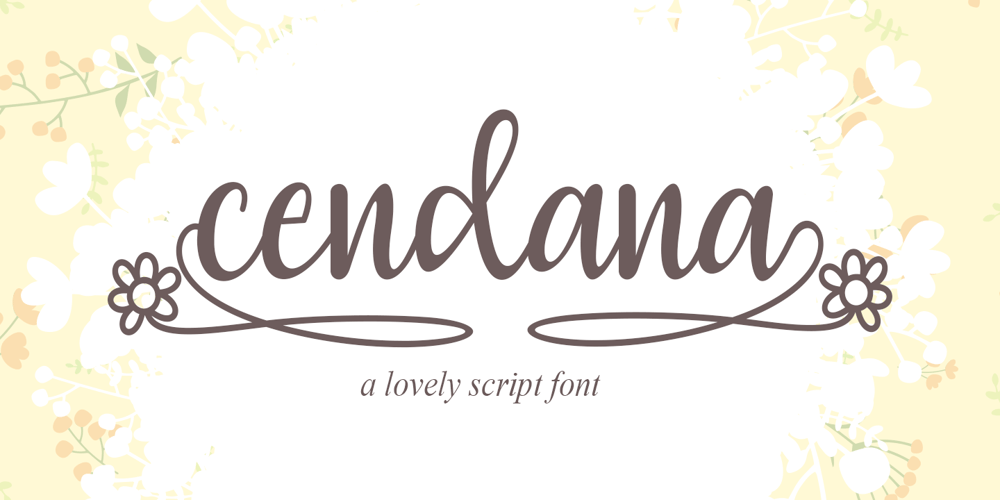
Cendana
Cendana font
Cendana Font Family was designed by Arief Tri Sulistiyono and published by Supersemarletter. Cendana contains 1 styles and family package options. Cendana feels equally charming and elegant. It looks lovely on wedding invitations, thank you cards, quotes, greeting cards, logos, business cards and every other design which needs a handwritten touch. This font is PUA encoded which means you can access all of the glyphs and swashes with ease! It features a varying baseline, smooth lines, gorgeous glyphs and stunning alternates. Provide ligatures with special character make the design letter looks incredible. Honestly it works perfectly for headlines, logos, posters, packaging, T-shirts and much more.Font Features:• Regular version• Character set A-Z in uppercase and lowercase• Ligatures in Lowercase and special• Alternates option• Numerals & Punctuation• Accented Characters• Multiple Languages SupportedRecommended to use in Adobe Illustrator or Adobe Photoshop with opentype feature.If you have questions, just send me a message and I’m glad to help.Best Regards,Supersemar Letter